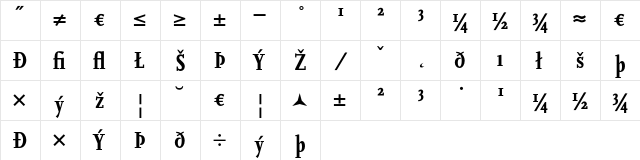
Scala Cond Exp Bold Font Preview
Scala Cond Exp Bold
Scala Cond Exp Bold Font Details
Design Context for Scala Cond Exp Typeface
Scala Cond Exp offers clean, dependable letterforms without strong stylistic allegiance, making it a practical choice for designers who need flexibility. The heavy weight commands attention and anchors typographic hierarchies. The condensed width makes it efficient for tight spaces without sacrificing legibility.